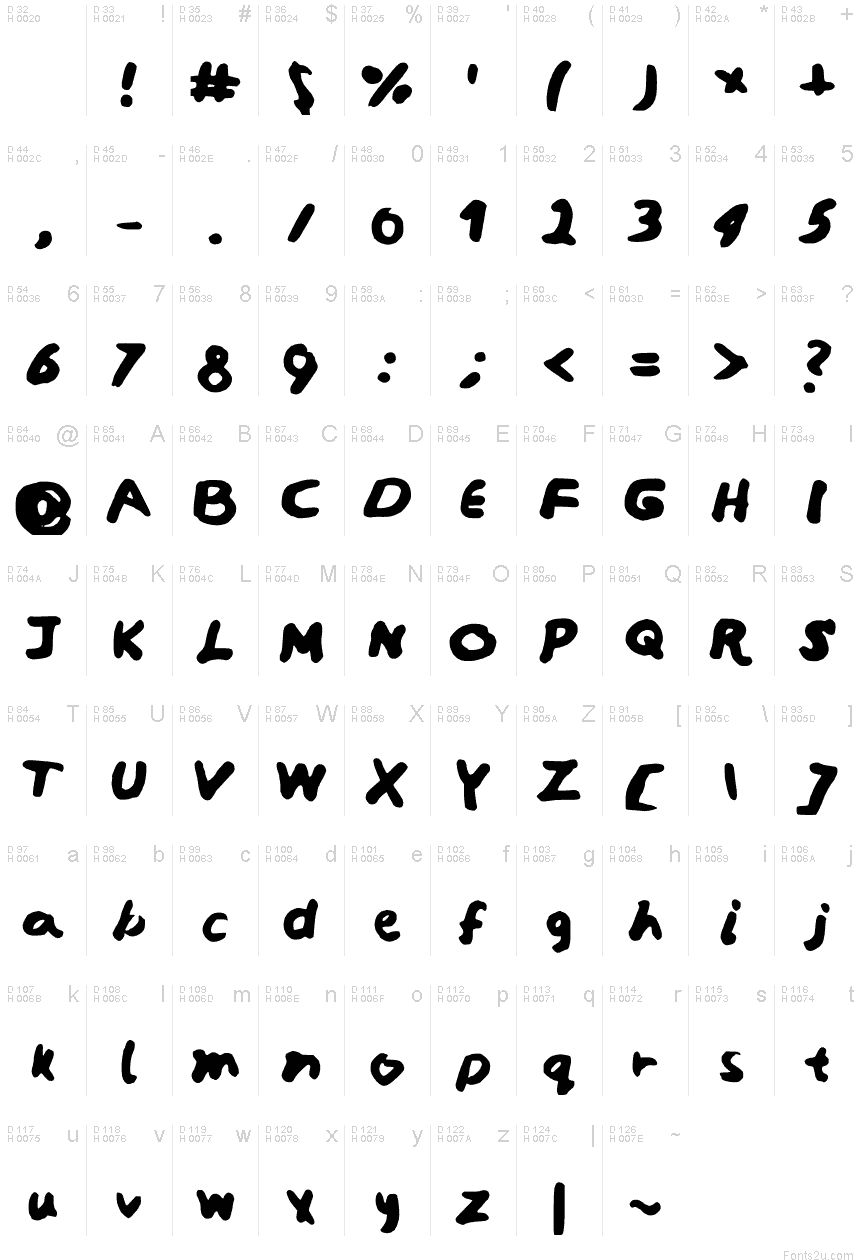
SarcasticaModern
Sarcastica Font Family! BY ME! Make sure to use those fonts when being "Sarcastic" :D
Please note that I created this font from my very own handwriting, and this font is NOT copied from somewhere.